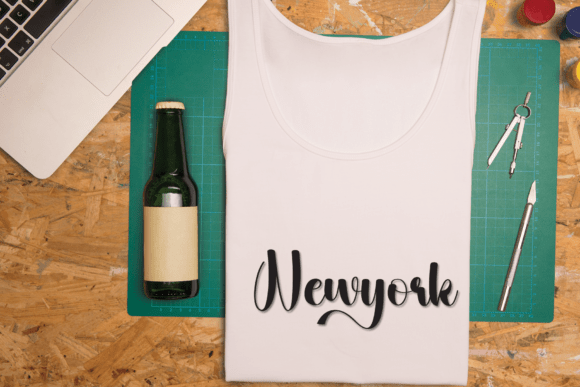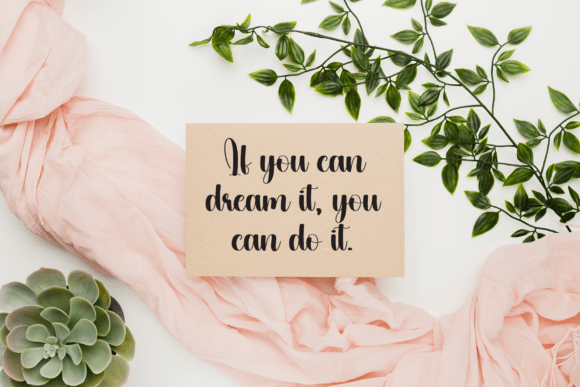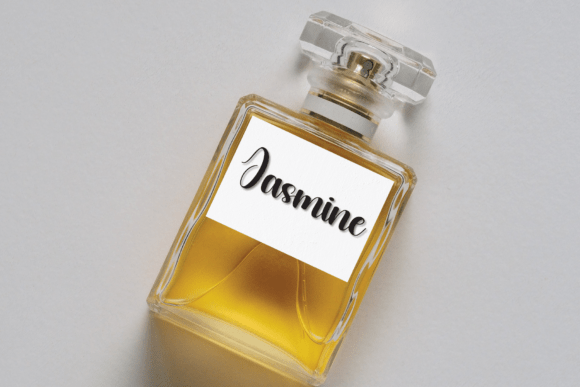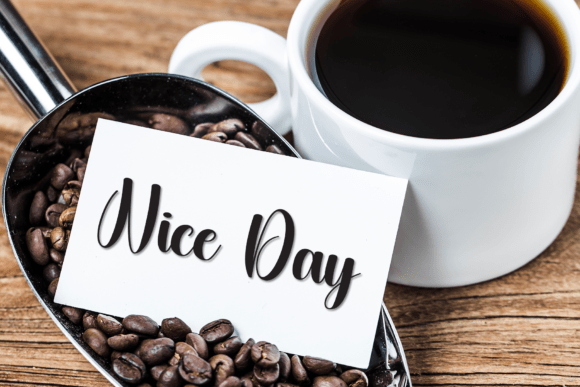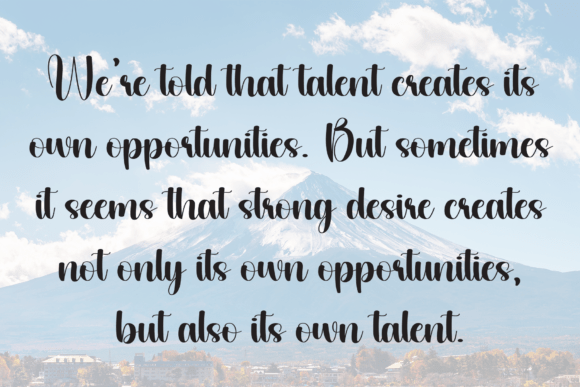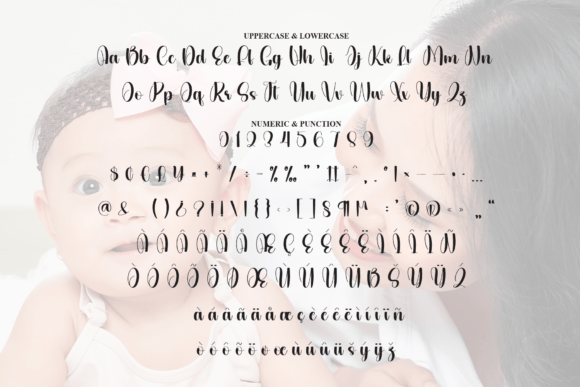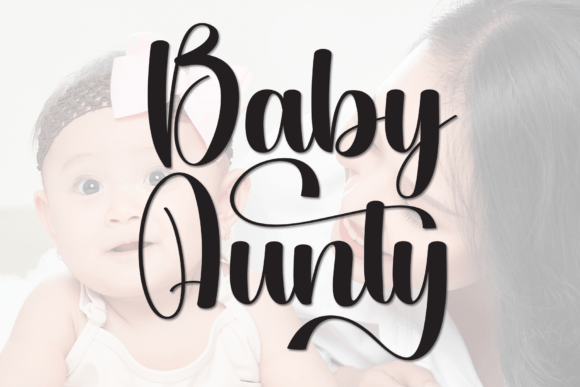
Baby Aunty Font: Elevate Your Designs with Elegance and Sophistication
In the world of typography, few fonts manage to strike a balance between elegance and modernity. Baby Aunty Font is one such exceptional script font that brings a touch of sophistication and contemporary charm to any design. With its graceful strokes, fluid curves, and meticulously crafted letterforms, Baby Aunty captures the essence of hand-drawn calligraphy, infusing it with a modern twist that appeals to designers and crafters alike.
The Essence of Baby Aunty Font
Baby Aunty Font is more than just a collection of letters; it’s an experience. This stylish script font is designed to evoke a sense of luxury and refinement, making it perfect for projects that demand a high level of elegance. Whether you’re creating logos, invitations, packaging, or social media graphics, Baby Aunty adds a polished and sophisticated touch that elevates your designs to new heights.
Key Features of Baby Aunty Font
- Graceful Strokes and Fluid Curves: The font’s design is characterized by smooth, flowing strokes that give it a natural and effortless look. Each curve and line is carefully crafted to ensure a harmonious and aesthetically pleasing appearance.
- Hand-Drawn Calligraphy with a Modern Twist: Baby Aunty brings the charm of traditional hand-drawn calligraphy into the modern era. Its letters are designed to mimic the fluidity of handwritten script, yet possess a precision and consistency that makes it suitable for professional design projects.
- Versatility and Visual Appeal: One of the standout features of Baby Aunty Font is its versatility. It can be used across a wide range of design applications, from elegant branding and high-end packaging to stylish invitations and engaging social media graphics. Its visual appeal lies in its ability to add a touch of sophistication and refinement to any project.
Applications of Baby Aunty Font
The versatility of Baby Aunty Font makes it an excellent choice for various design projects. Here are some of the ideal applications for this elegant script font:
- Logos and Branding: Create a lasting impression with a logo that exudes elegance and sophistication. Baby Aunty Font is perfect for luxury brands, beauty products, and high-end services.
- Invitations and Stationery: Add a touch of class to your invitations, greeting cards, and stationery with Baby Aunty’s graceful and refined letterforms.
- Packaging Design: Elevate your product packaging with a font that communicates luxury and quality. Baby Aunty Font is ideal for cosmetics, fashion, and gourmet food products.
- Social Media Graphics: Stand out on social media with stylish graphics that showcase your brand’s personality. Use Baby Aunty Font for quotes, promotions, and engaging content.
Why Choose Baby Aunty Font?
In a sea of fonts, Baby Aunty stands out for its unique blend of traditional calligraphy and modern design. Here are a few reasons why designers and crafters prefer Baby Aunty Font:
- Elegance and Sophistication: Baby Aunty brings an unmatched level of elegance and sophistication to any design, making it perfect for projects that require a refined touch.
- Easy to Read and Versatile: Despite its elegant appearance, Baby Aunty Font remains highly legible, making it suitable for both headlines and body text. Its versatility allows it to be used in a variety of contexts.
- Time-Saving and Efficient: With Baby Aunty Font, you can achieve professional-looking results without spending hours on custom lettering. This saves time and allows you to focus on other creative aspects of your project.
Baby Aunty Font is a stylish script font that offers the perfect blend of elegance, sophistication, and modernity. Its graceful strokes, fluid curves, and carefully crafted letterforms make it an excellent choice for designers and crafters looking to add a refined touch to their projects. Whether you’re working on logos, invitations, packaging, or social media graphics, Baby Aunty Font delivers both versatility and visual appeal, ensuring your designs stand out in a crowded creative landscape.
Discover the beauty of Baby Aunty Font and elevate your designs to new heights of elegance and sophistication.